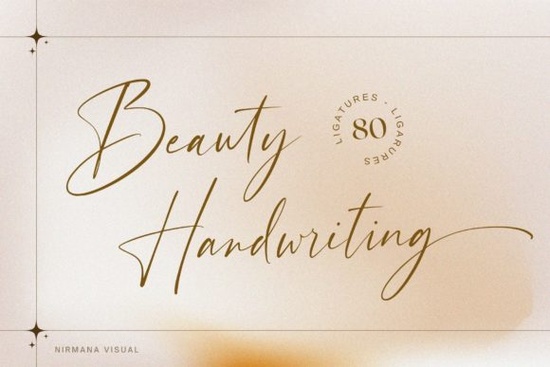
Designers, crafters, and small business owners often look for fonts that add a personal touch to their projects. The Beauty Handwriting Font is one such typeface that brings a soft, elegant feel to any design. Whether you're creating packaging, invitations, or promotional materials, this script font offers a natural flow that complements a wide range of creative needs.
With its balanced character set and flowing style, the Beauty Handwriting Font is ideal for those who want to add a humanized look to their work. It works well with both modern and traditional designs, making it a versatile choice for different applications. If you're looking for a font that feels authentic and expressive, this could be the right option for you.
What Makes This Font Stand Out?
The Beauty Handwriting Font stands out due to its unique balance between readability and artistic flair. Unlike rigid typefaces, this script has a more organic feel, which can make your designs feel more personal and engaging. It’s especially useful for projects that require a warm, inviting tone.
For example, if you’re designing wedding invitations, event posters, or product labels, this font can help convey a sense of care and attention to detail. Its clean lines and consistent spacing make it easy to use in both digital and print formats.
How to Use the Beauty Handwriting Font
This font is perfect for a variety of uses. You can apply it to logos, social media graphics, or even custom t-shirt designs. Its free-flowing nature makes it great for hand-lettering styles, while still maintaining clarity in larger text sizes.
If you're working on a project that requires multiple fonts, the Beauty Handwriting Font pairs well with other script or serif typefaces. For instance, combining it with the Father Farmhouse Font can create a cohesive and stylish look for rustic-themed designs.
Similar Fonts to Explore
If you enjoy the Beauty Handwriting Font, there are several other script fonts worth checking out. The Braveston Font offers a similar elegance with a slightly more structured appearance. For something more casual and handwritten, the Dreamina Handwritten Font might be a good fit.
For a more refined and classic feel, consider the Oligeb Font. Each of these fonts has its own personality, so experimenting with them can help you find the perfect match for your design goals.
Best Practices for Using Script Fonts
Script fonts like the Beauty Handwriting Font can add a lot of visual interest, but they should be used thoughtfully. Overusing them can make your design look cluttered or hard to read. A good rule of thumb is to use them for headlines or short phrases rather than long blocks of text.
Another tip is to pair them with simpler typefaces for contrast. This helps maintain readability while still allowing the script font to shine. Always test your designs in different sizes and formats to ensure they look good across all platforms.
If you're new to using script fonts, start by applying them to a single element in your design. This allows you to see how they interact with other elements before committing to a full layout.
Remember, the goal is to enhance your design, not overpower it. With the right approach, the Beauty Handwriting Font can become a valuable addition to your design toolkit.
- Use the font for headlines or short text
- Pair it with a simple sans-serif or serif font
- Test it in different sizes and formats
- Explore related fonts for variety
By following these tips, you can make the most of the Beauty Handwriting Font and create designs that feel both professional and personal.